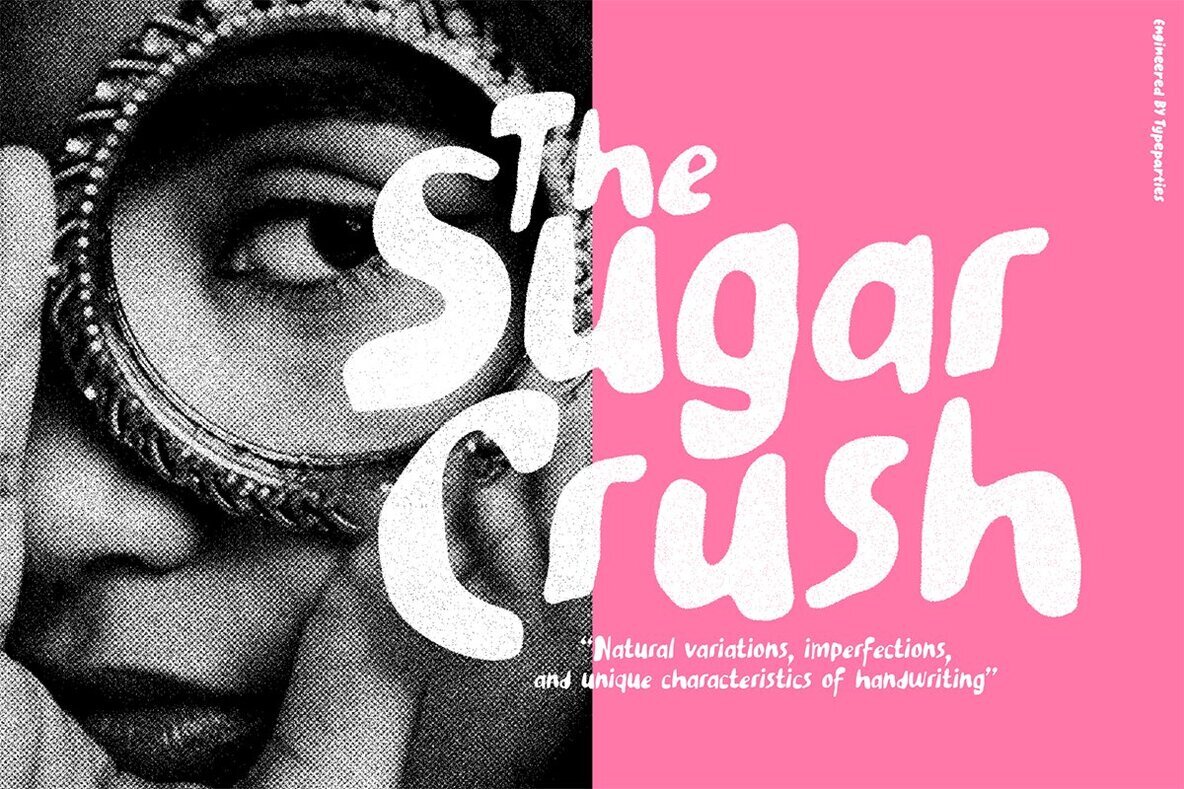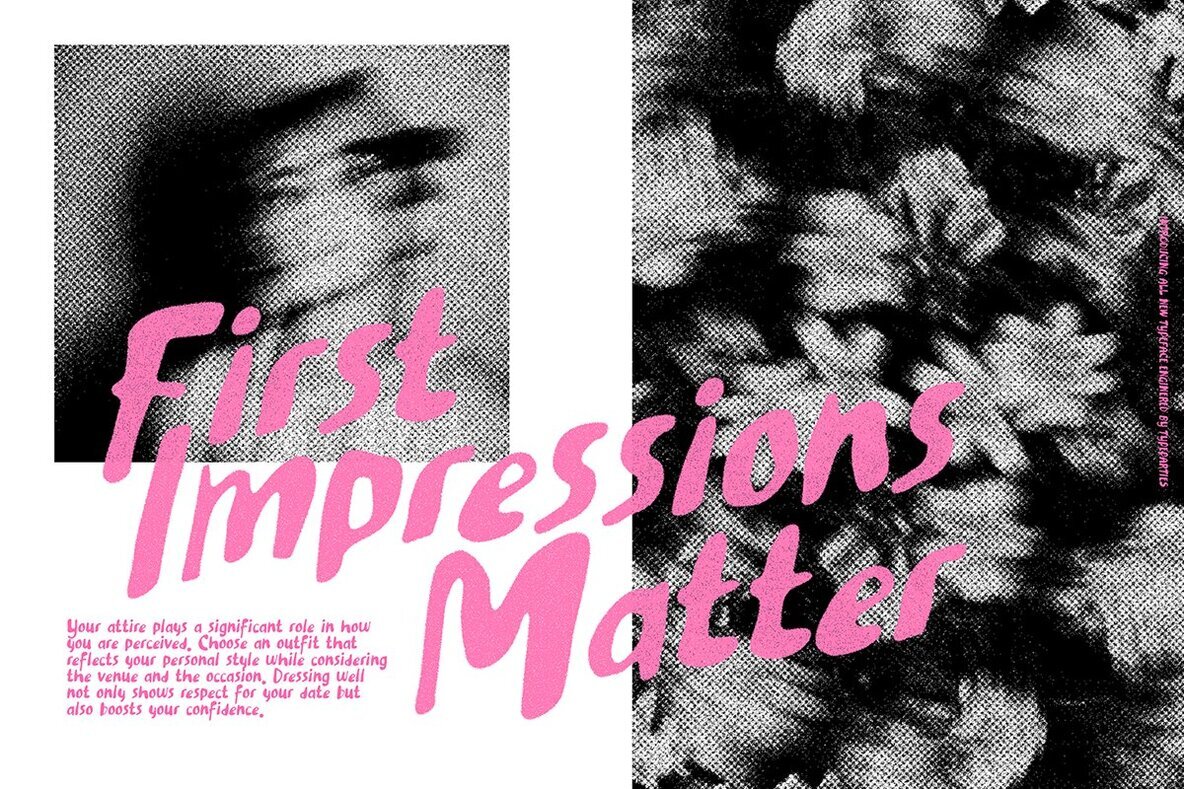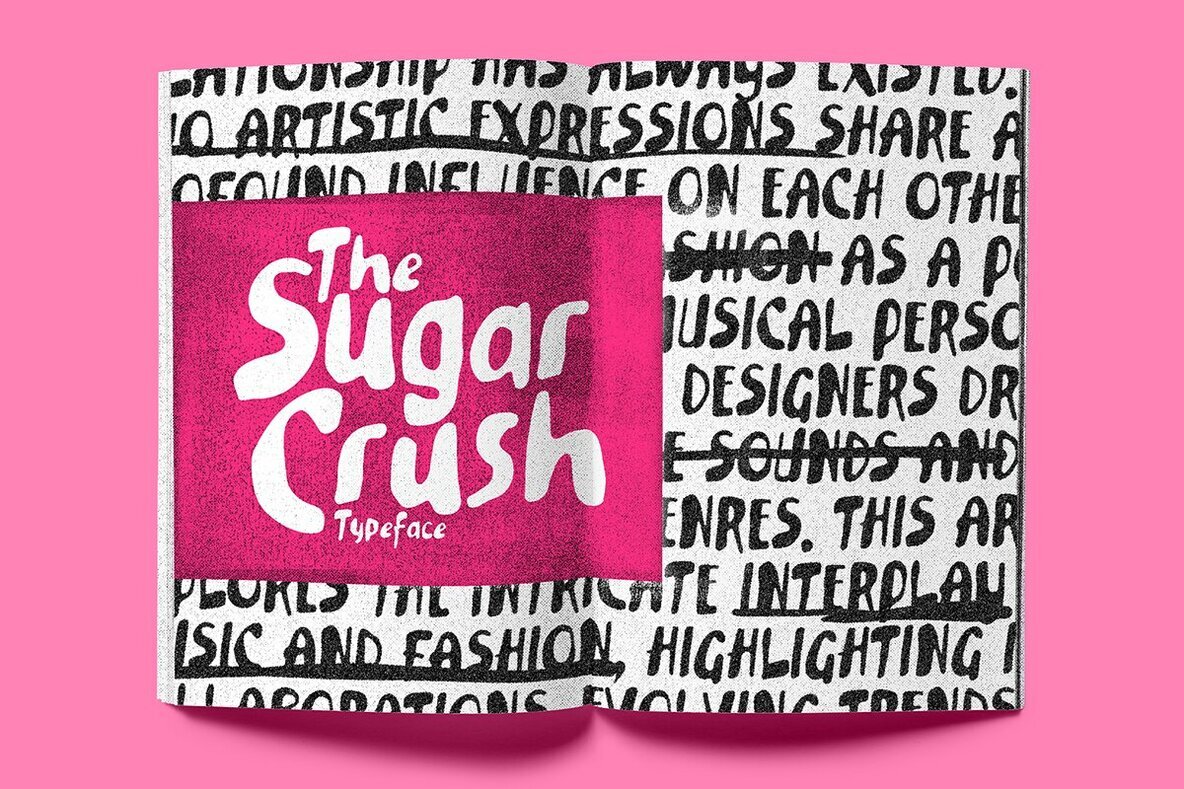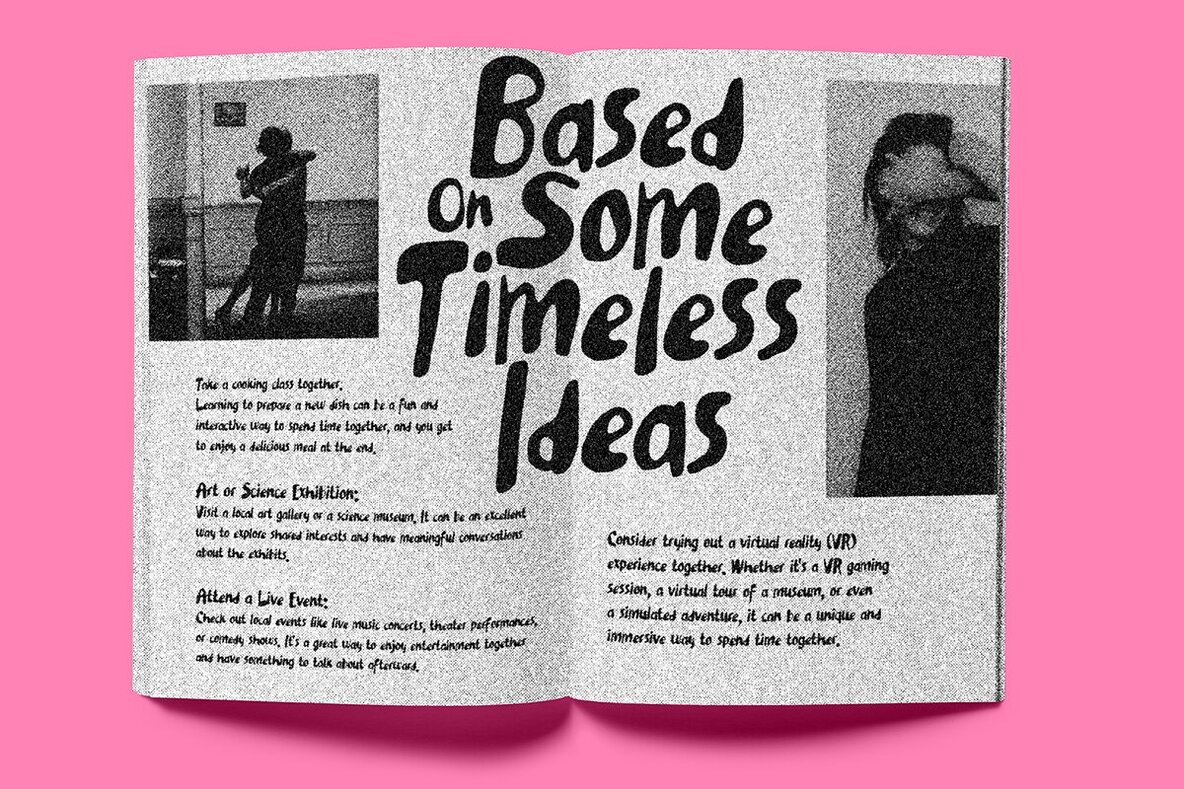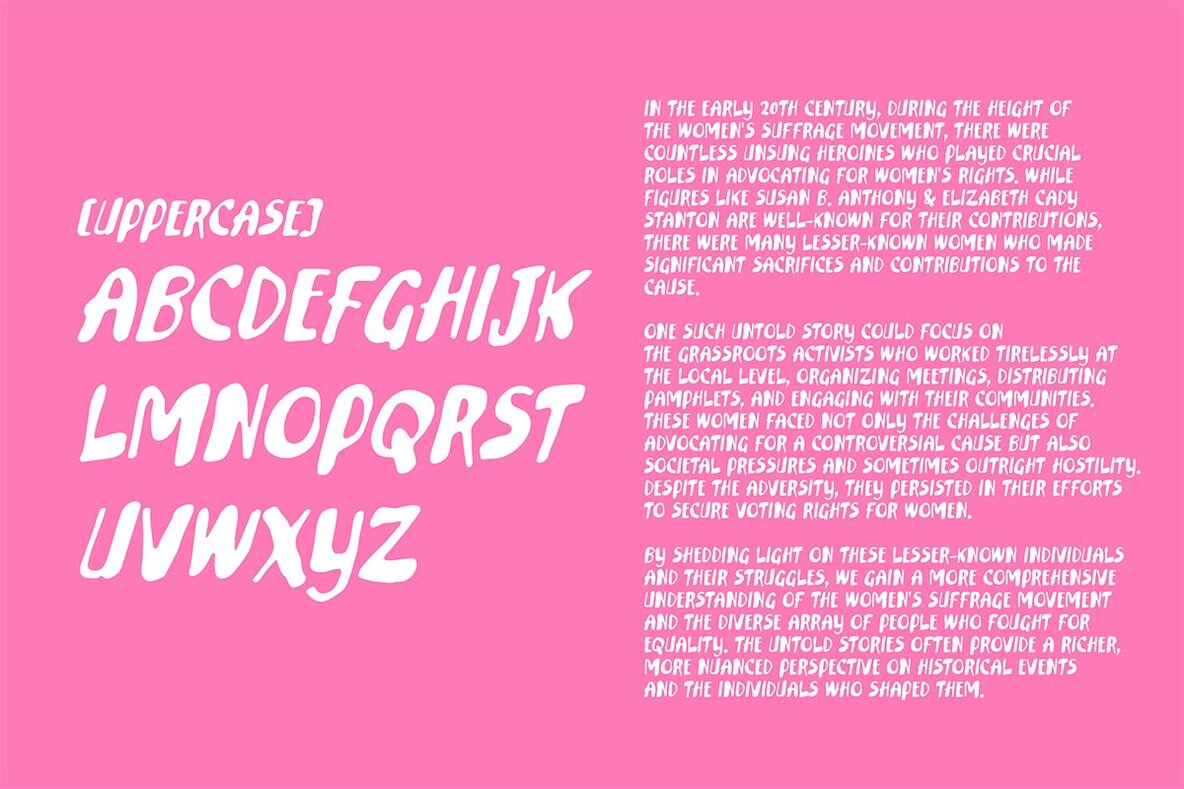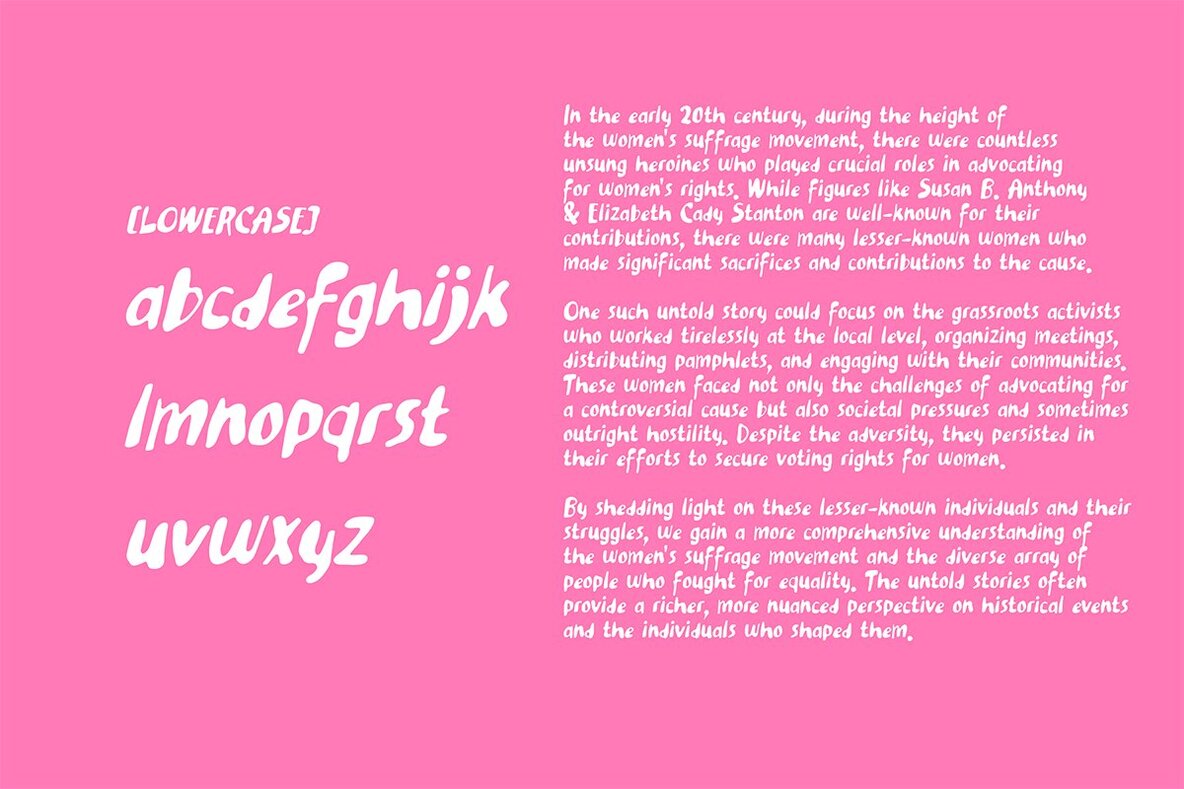
Sugar Crush Font
ATP Sugar Crush
Natural variation, imperfections, and unique characteristics are the soul of handwriting fonts, transforming digital text into an artful and personalized experience. These fonts seek to emulate the organic nature of human handwriting, capturing the nuances that make each stroke distinctive and imbuing a sense of authenticity into the written word.